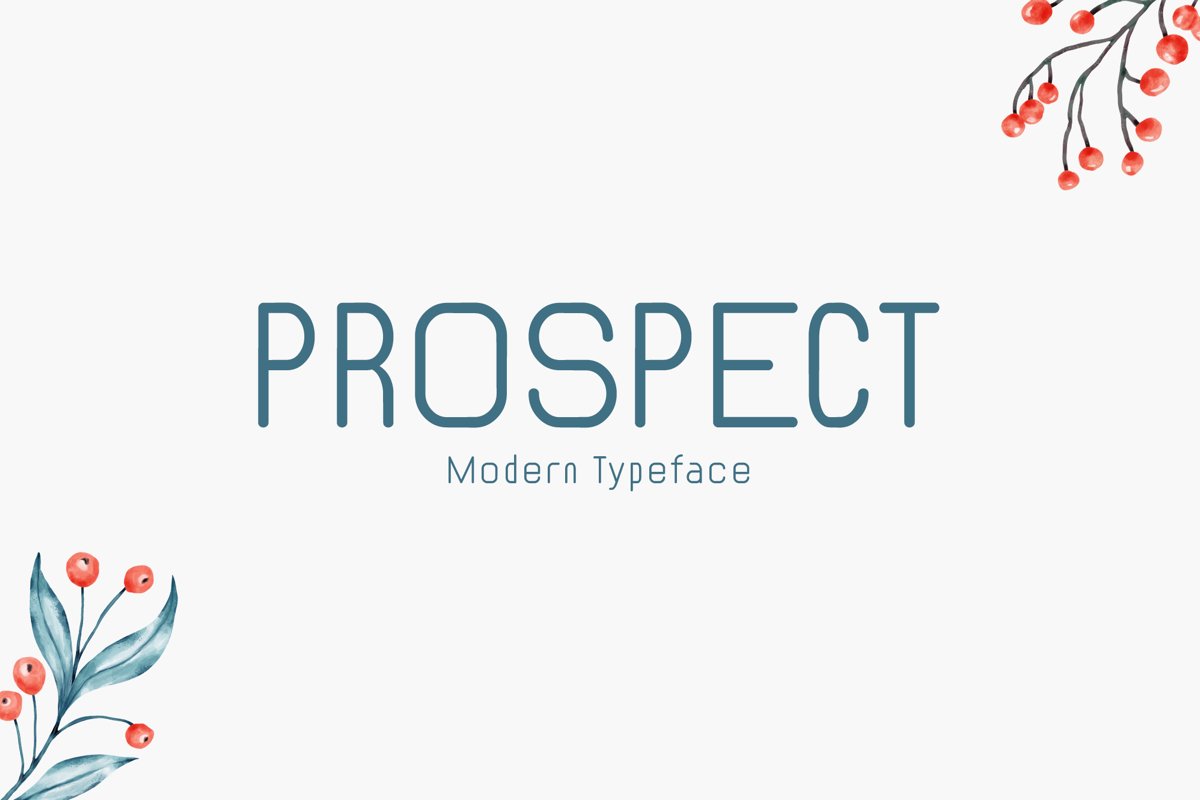
Introducing Prospect!
Prospect is a brand new modern font. Prospect is perfectly suited for stationery, logos, t-shirt, paper, print design, website header, photo frame, flyer, music cover, poster, image slider and much more.